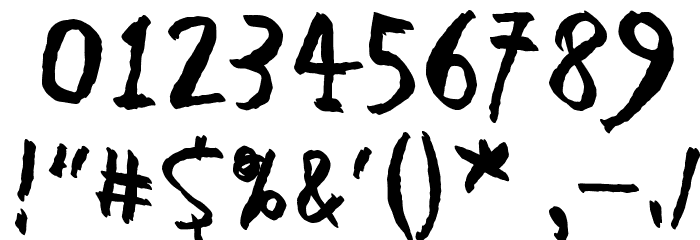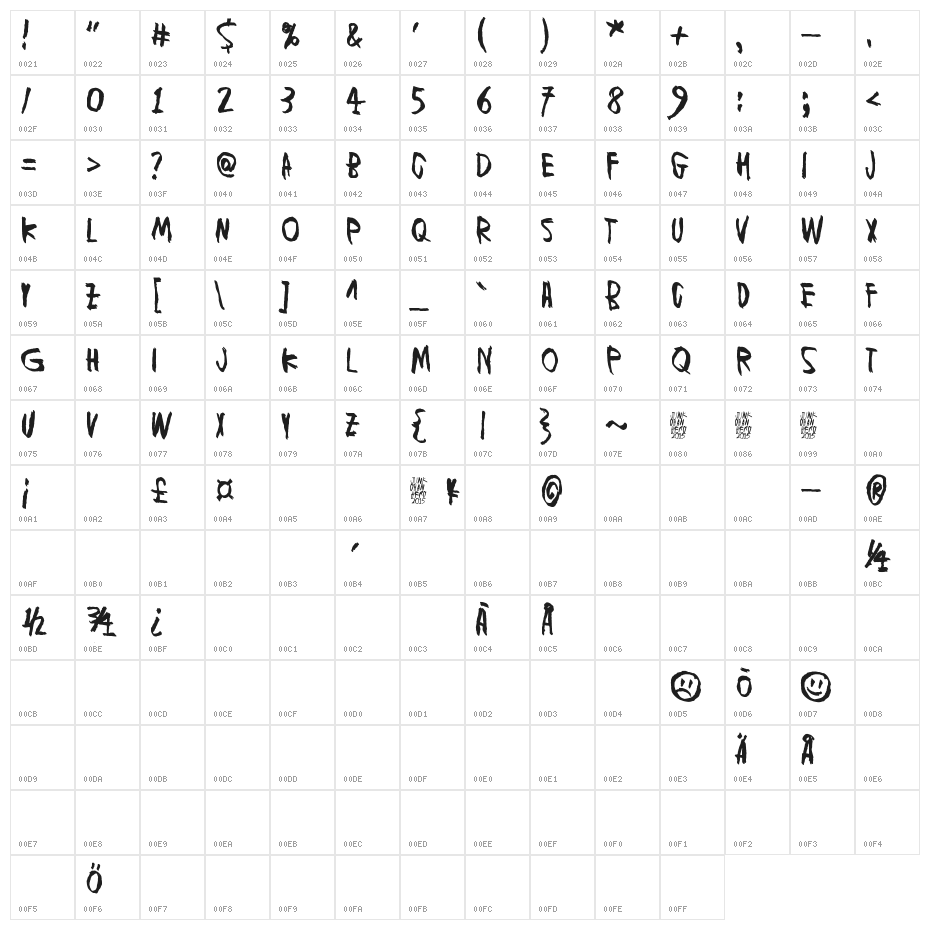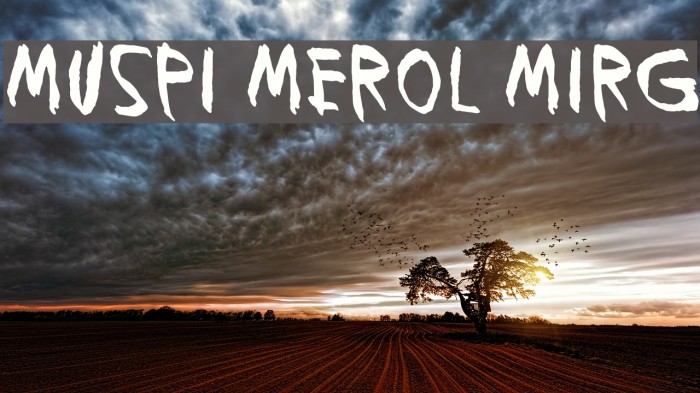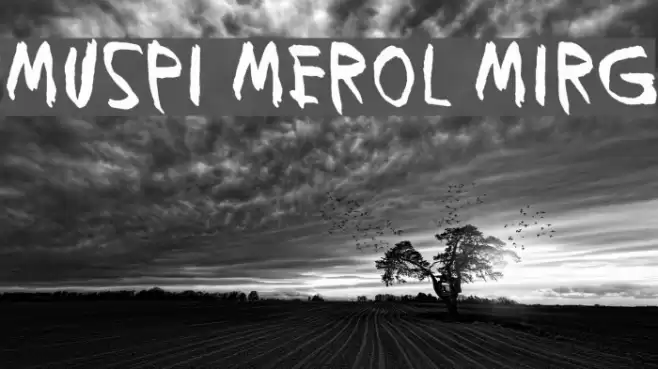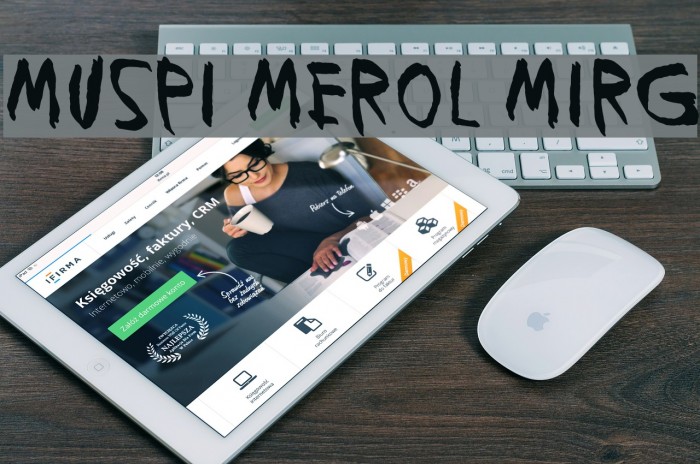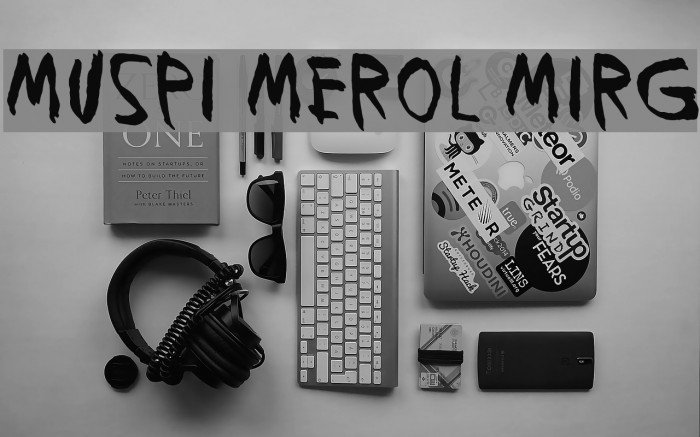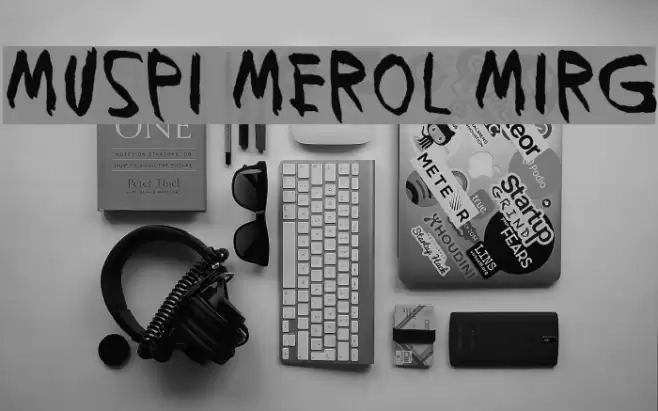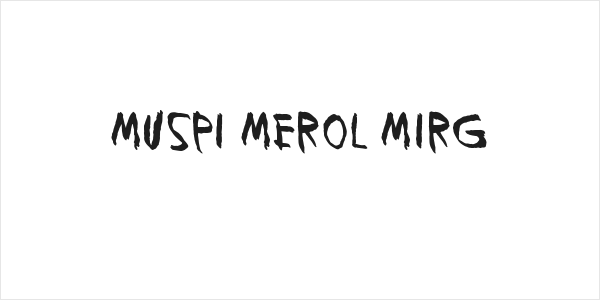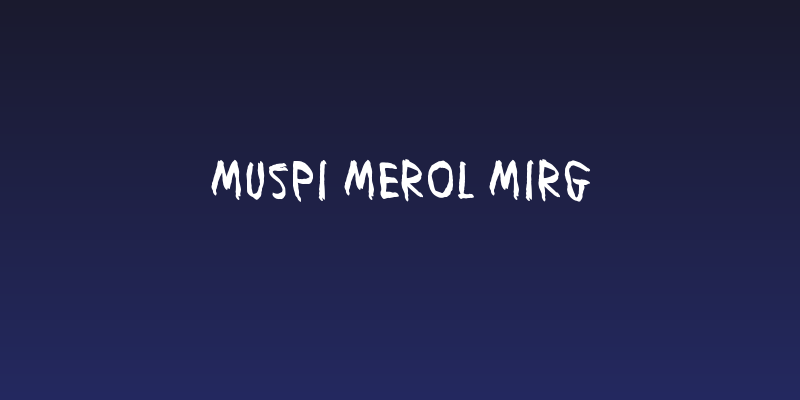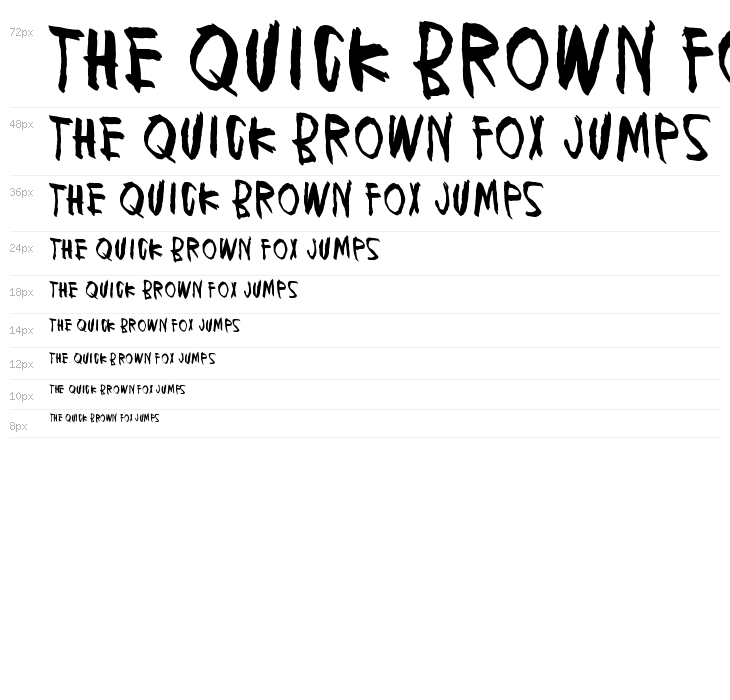
Muspi Merol Mirg Font
Muspi Merol Mirg Description
This font features a bold and expressive style with a hand-drawn appearance. The characters are irregular and dynamic, giving a sense of movement and energy. The strokes are thick and uneven, creating a raw and edgy look. This font is highly decorative, with a unique flair that makes it stand out. The uppercase and lowercase letters maintain a consistent style, while the numbers and special characters follow the same expressive design. The overall aesthetic is artistic and unconventional, making it suitable for creative projects.
| Proposed Projects | Ideal for posters, album covers, artistic branding, and creative advertising. |